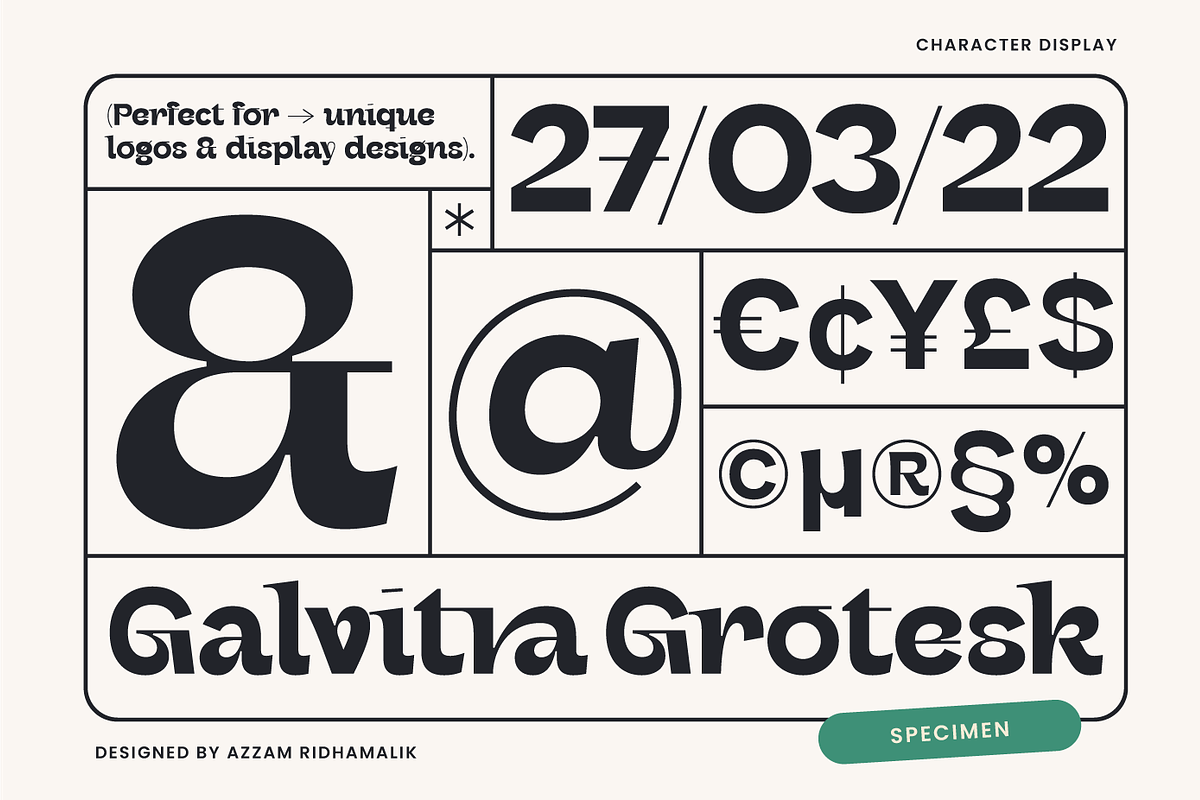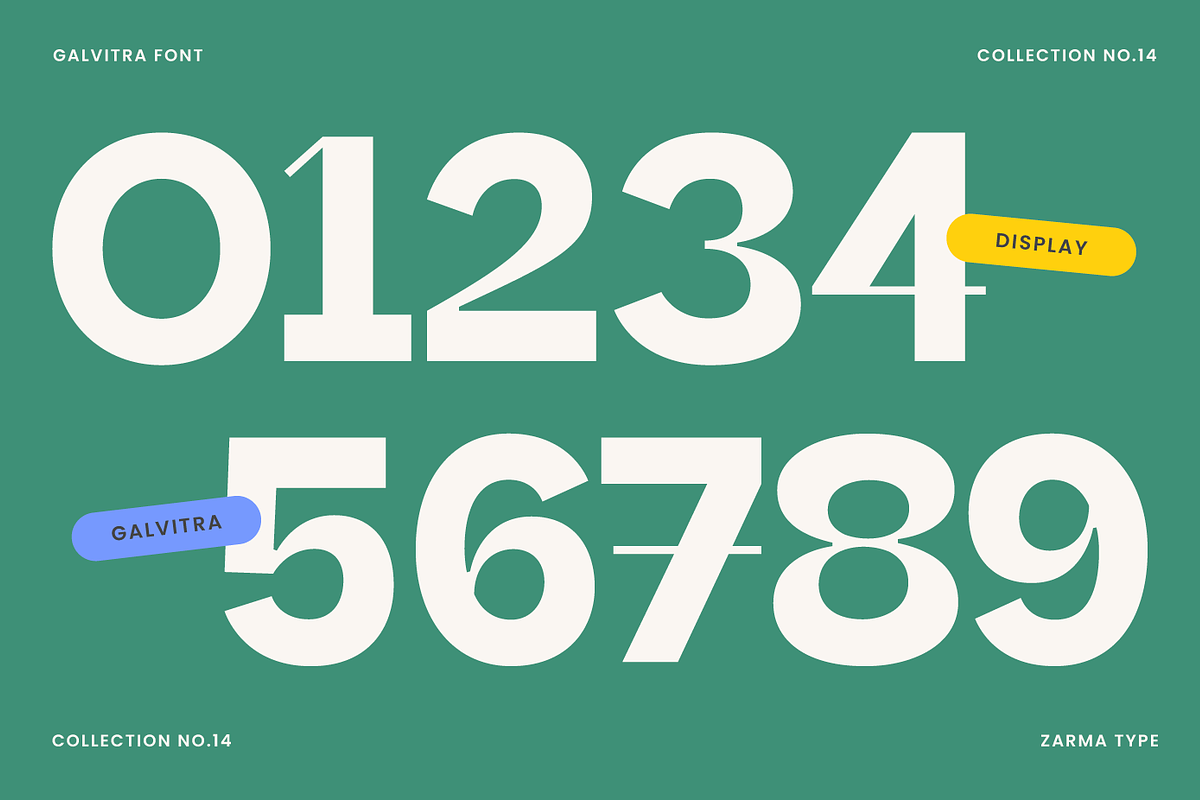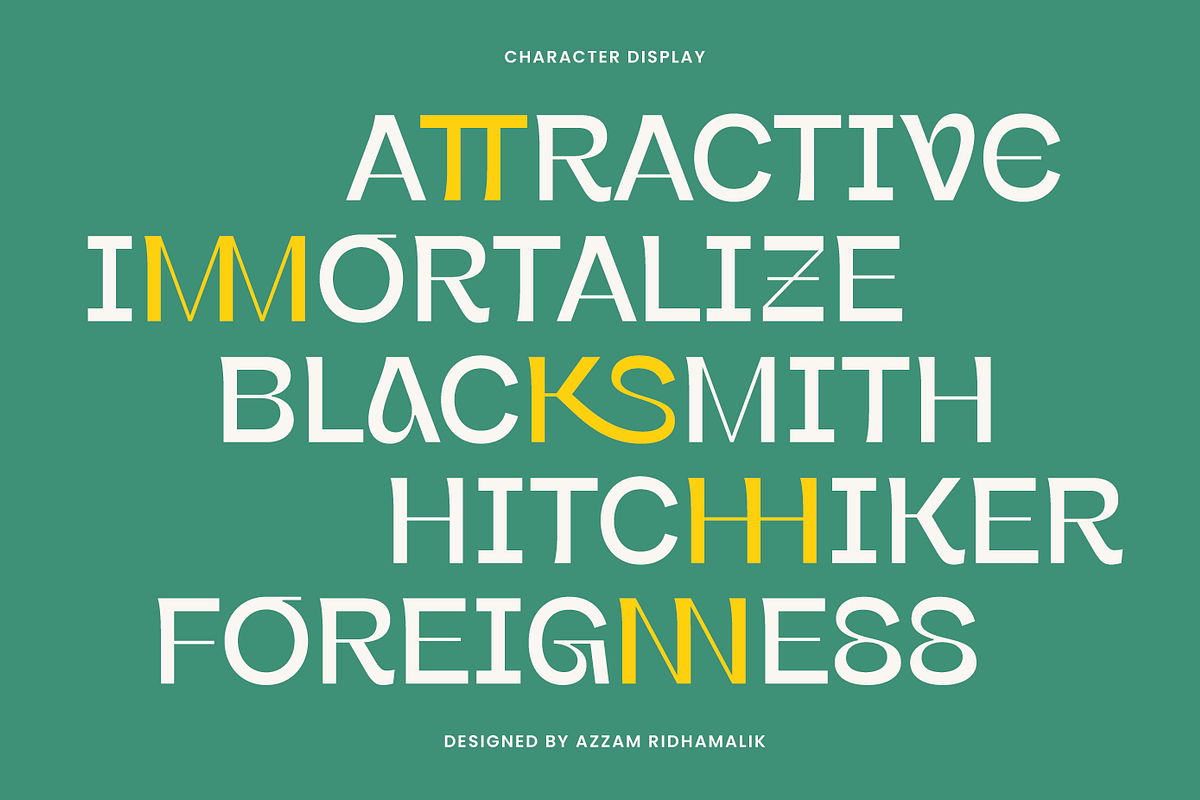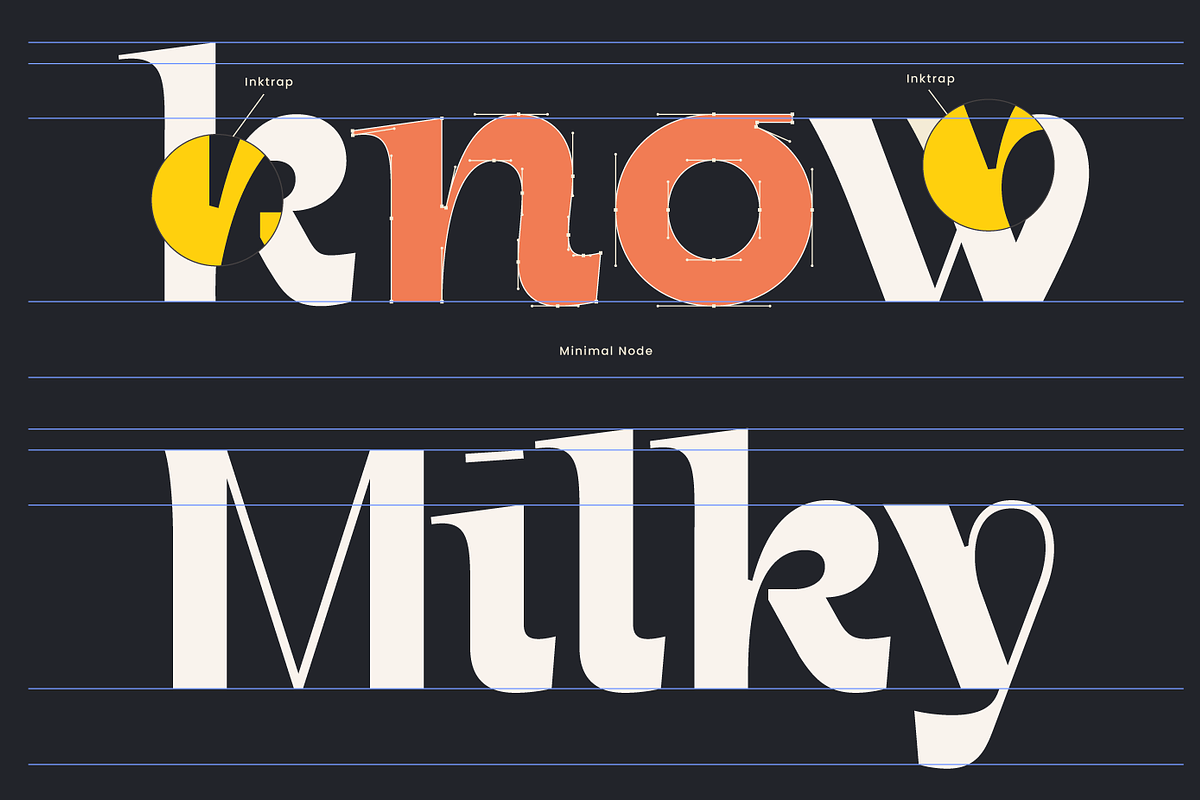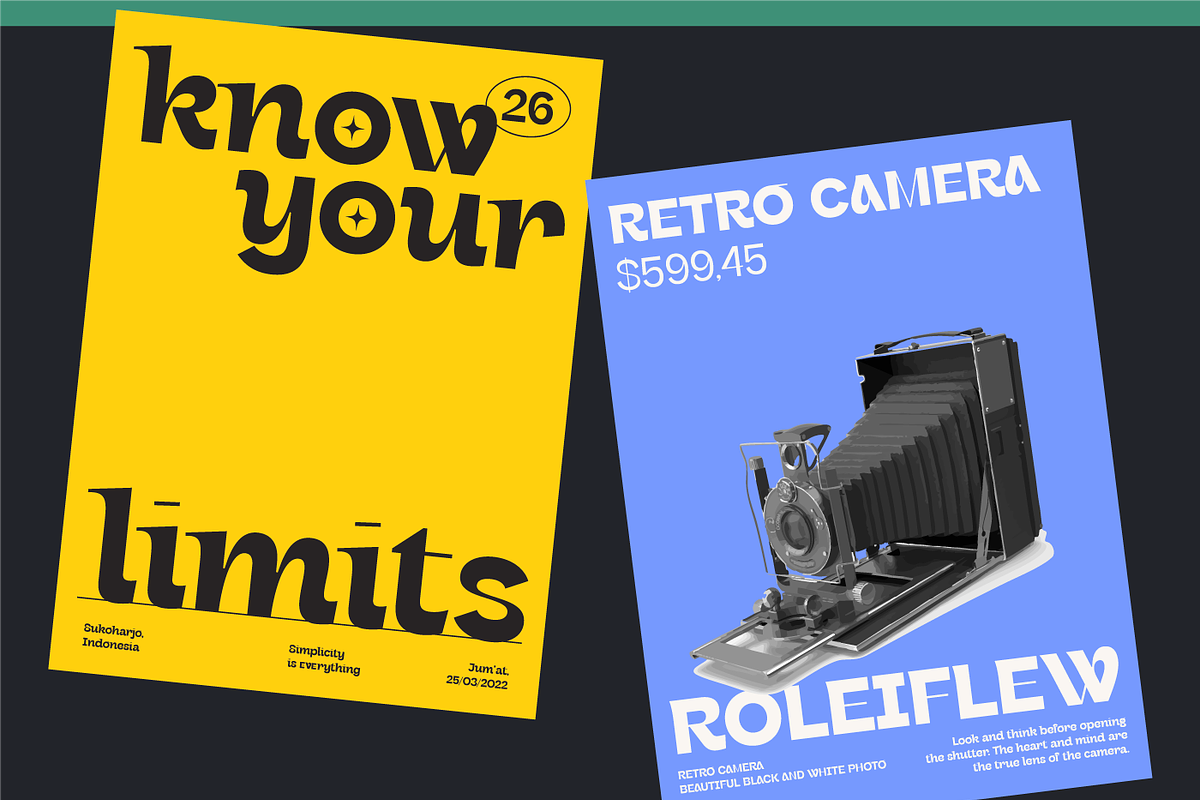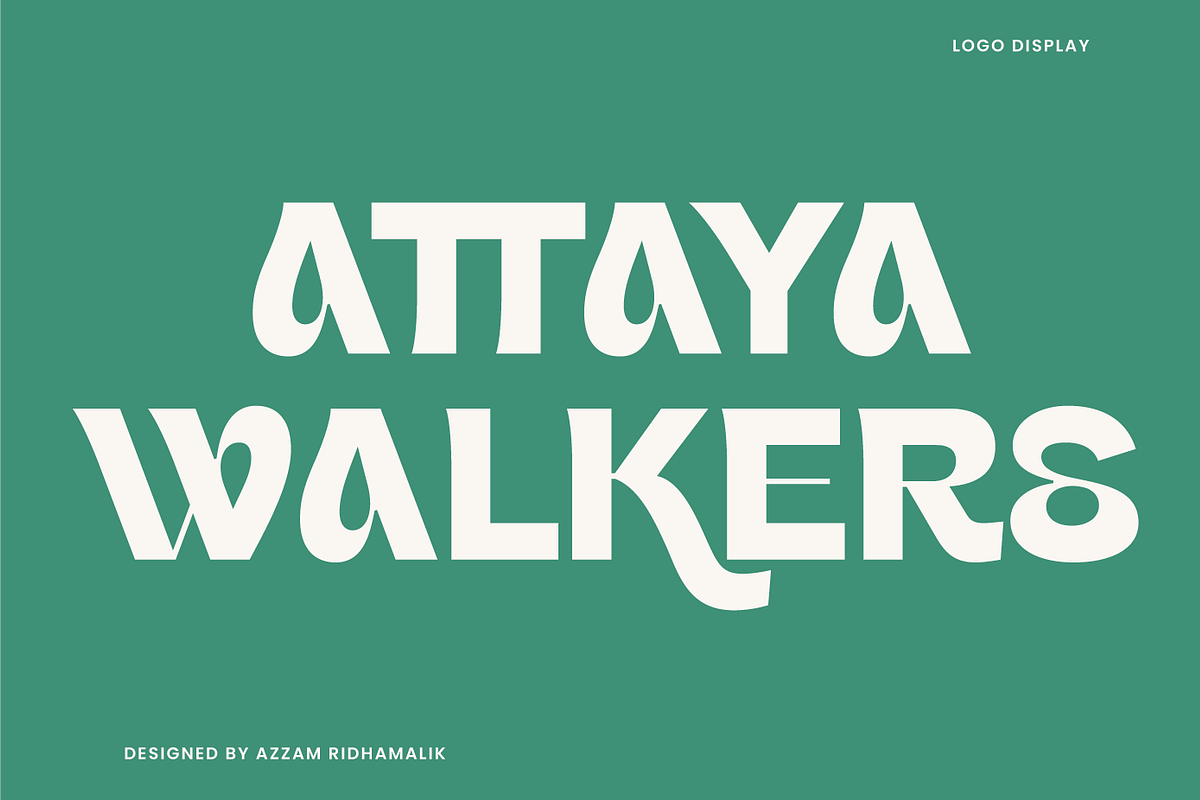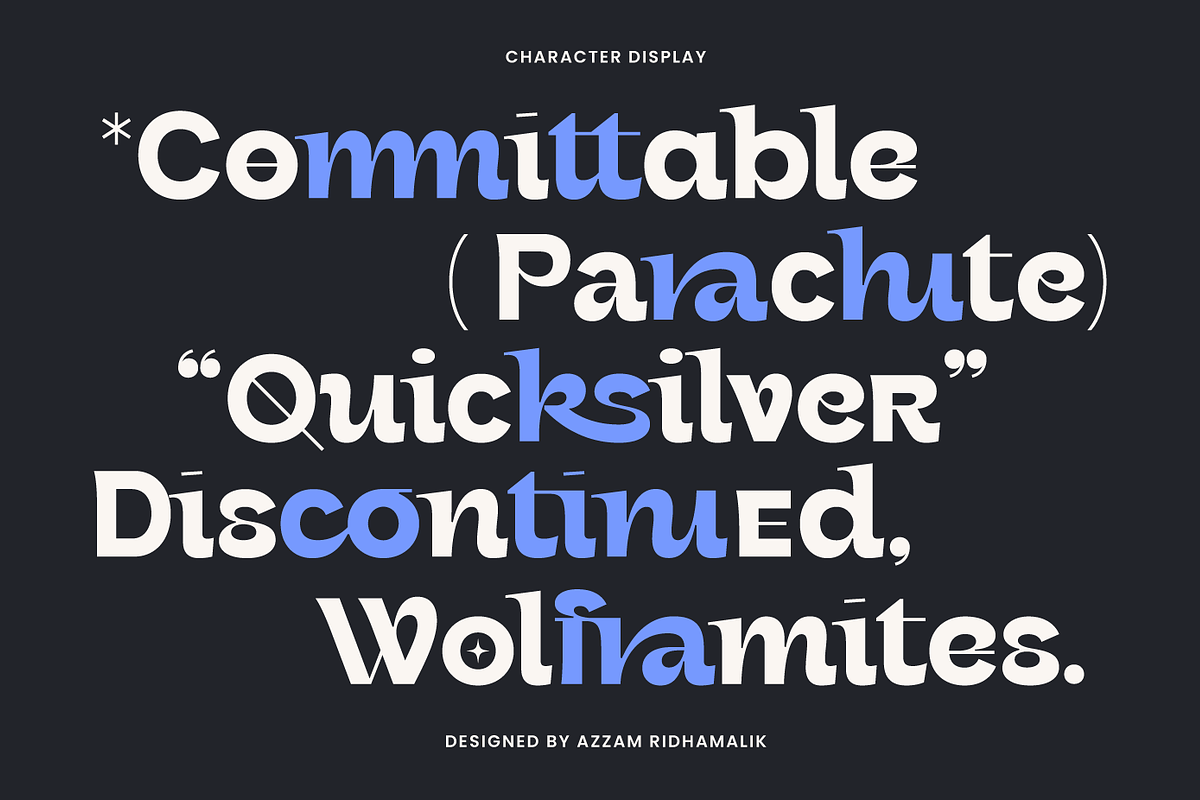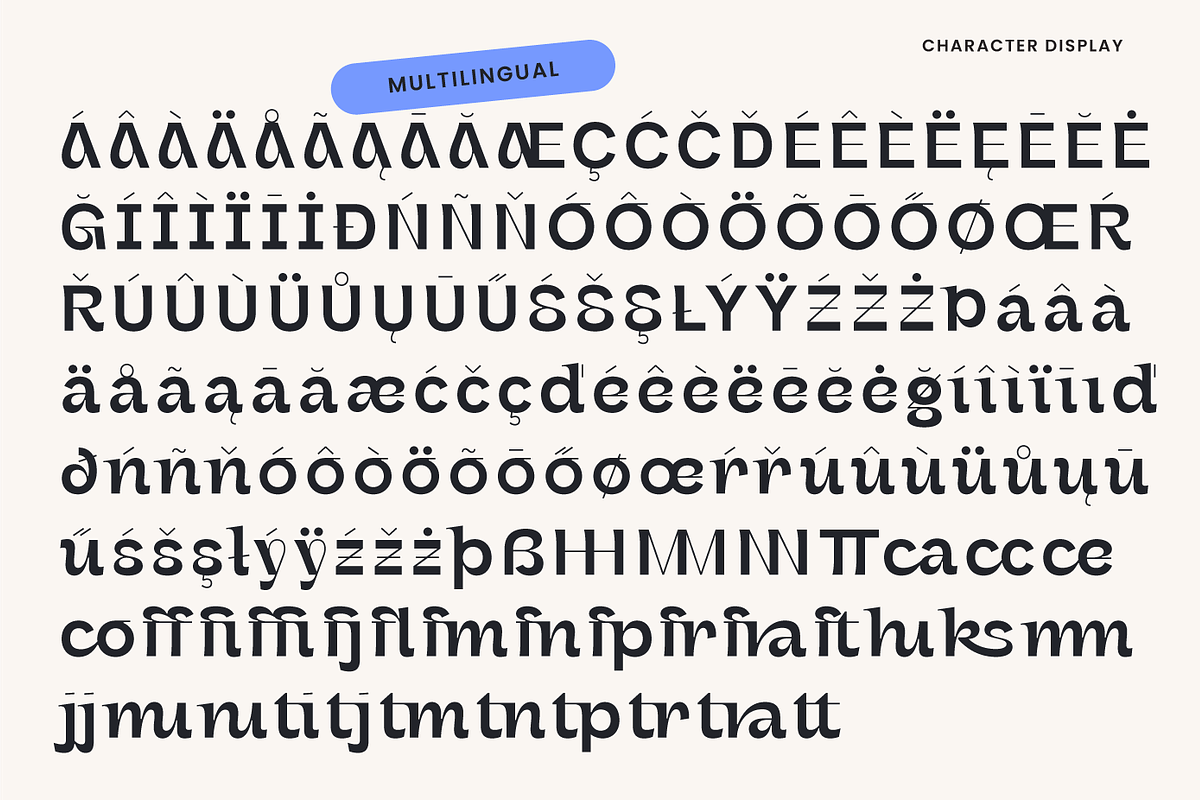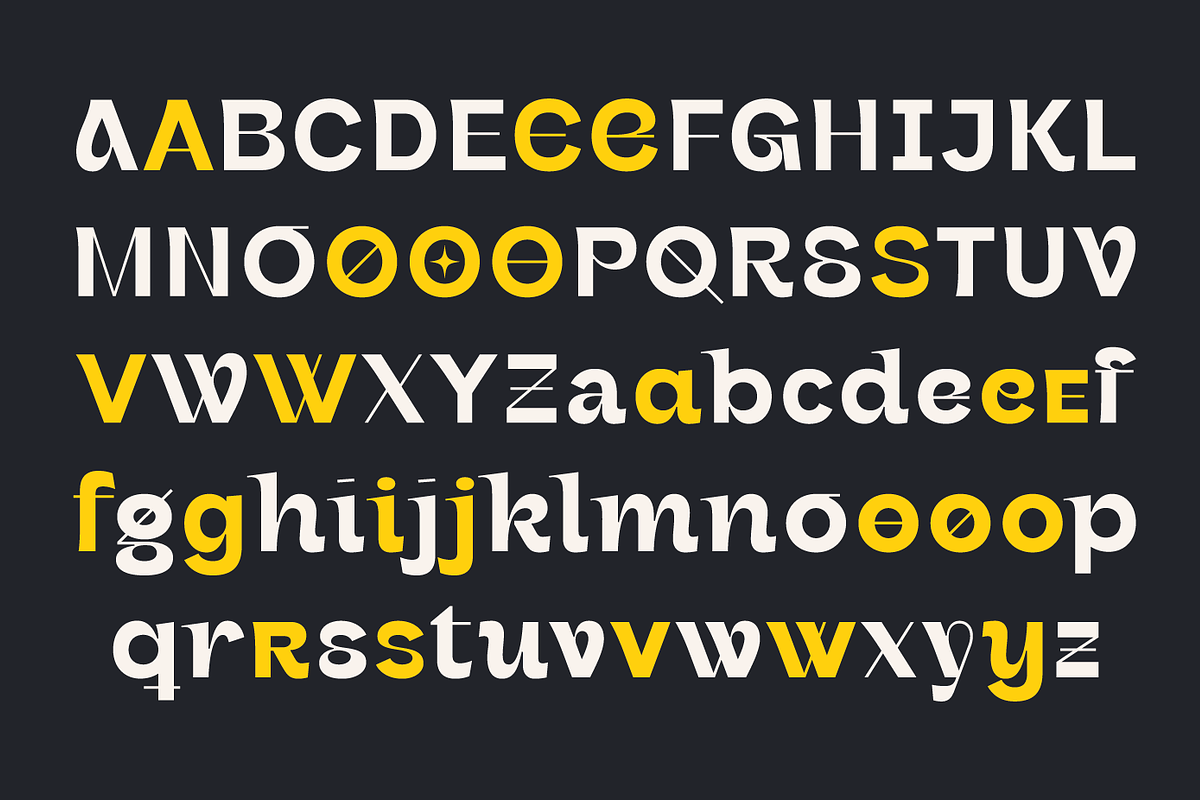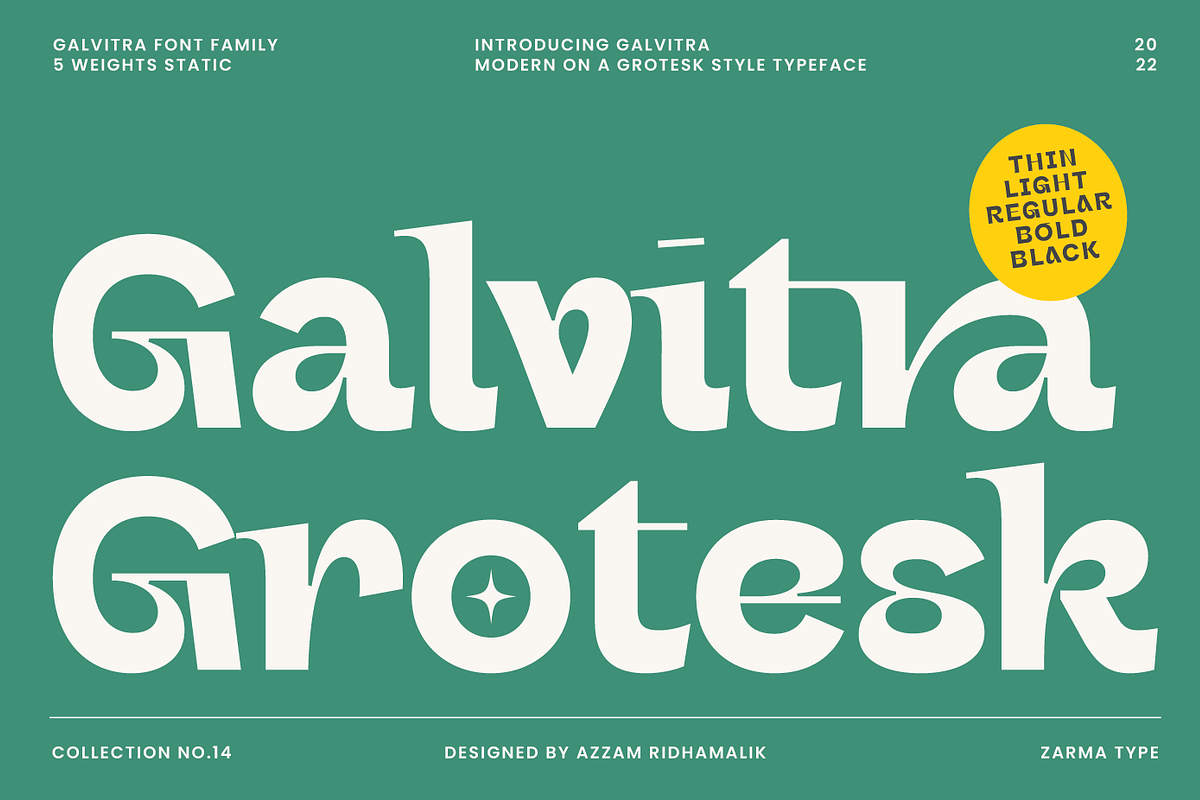
Galvitra - Grotesk Font
Galvitra is a modern grotesk-style typeface that merges geometric construction with playful, eye-catching flair. Designed with both character and clarity in mind, Galvitra features bold, rounded curves and subtle quirkiness that make it stand out in both digital and print mediums. From stylish editorial layouts to modern logos, this font family brings a unique charm to contemporary design. The distinctive alternate glyphs and quirky ligatures add depth and personality without compromising legibility.
With 5 carefully crafted static weights—from Thin to Black—Galvitra is versatile enough for minimalist branding or vibrant typographic compositions. Whether you're creating impactful poster headlines, sleek product packaging, or expressive social media visuals, Galvitra delivers a striking blend of modernism and friendliness that resonates with current design trends.
- Creative branding and logo design
- Editorial layouts and magazine spreads
- Trendy poster and print campaigns
- UI/UX interfaces and website headers
- Retro-modern packaging design
- Bold social media graphics
- 5 static weights (Thin, Light, Regular, Bold, Black)
- Uppercase, lowercase, numerals & punctuation
- Alternates and Ligatures